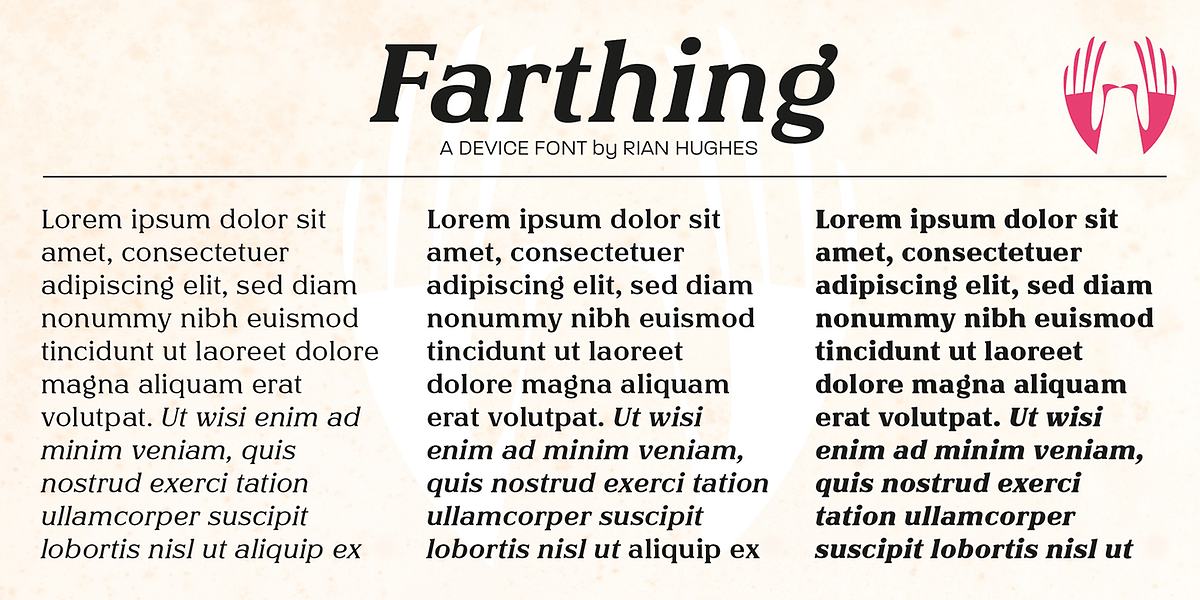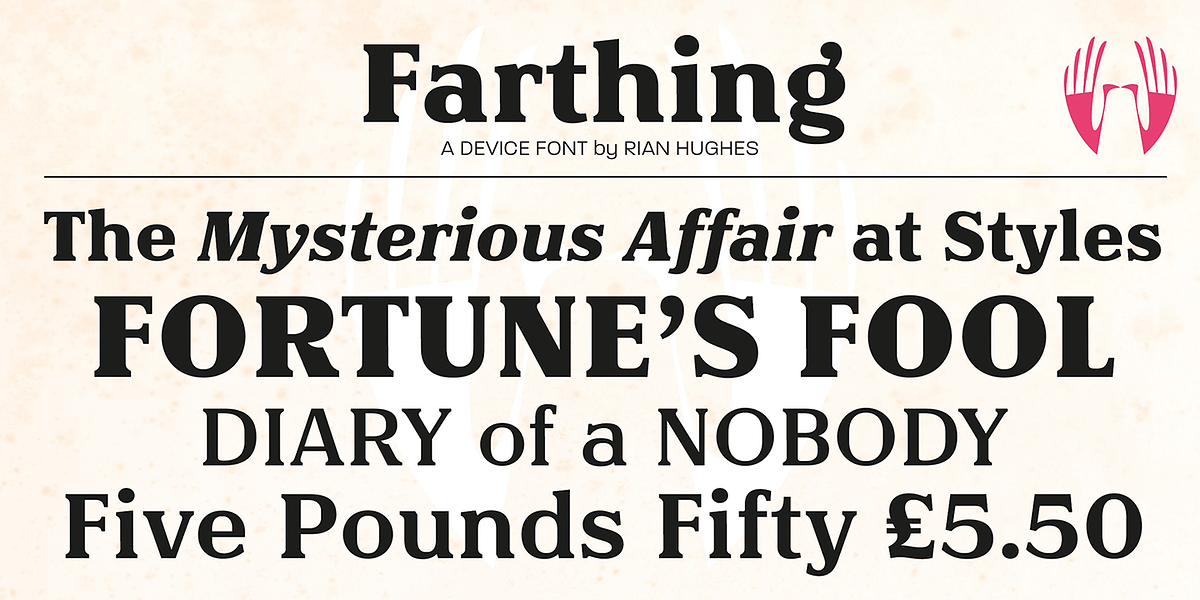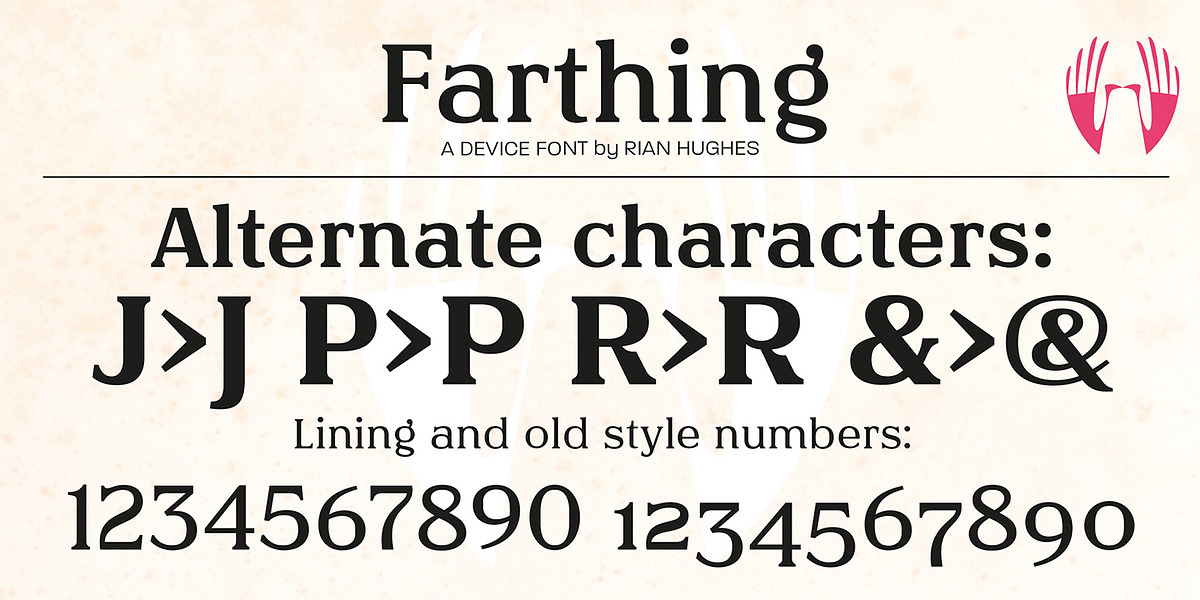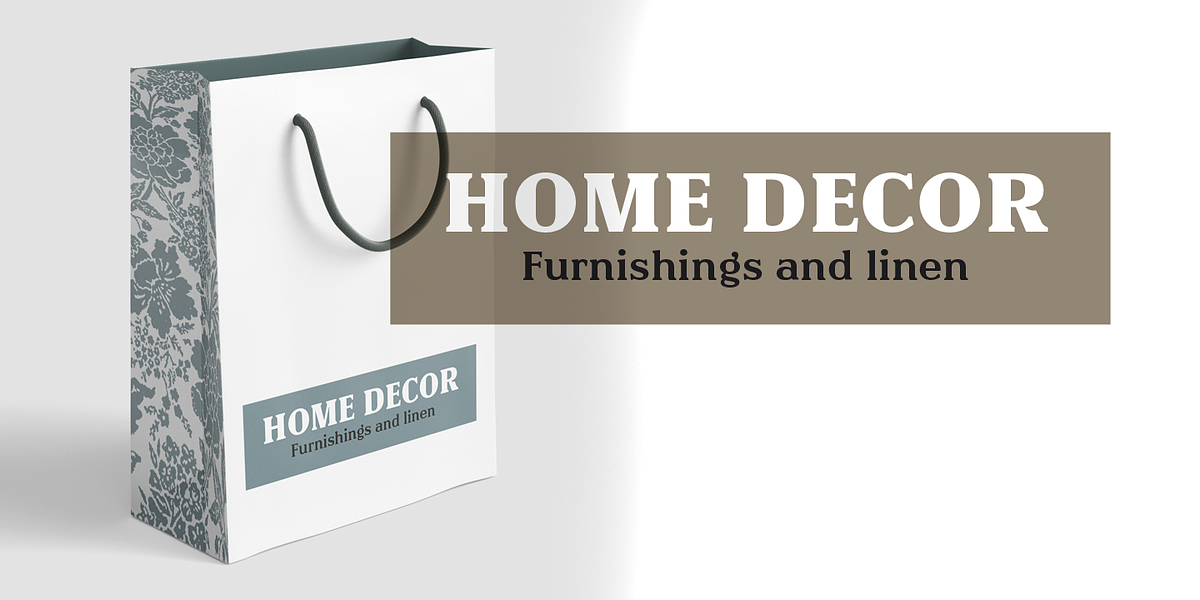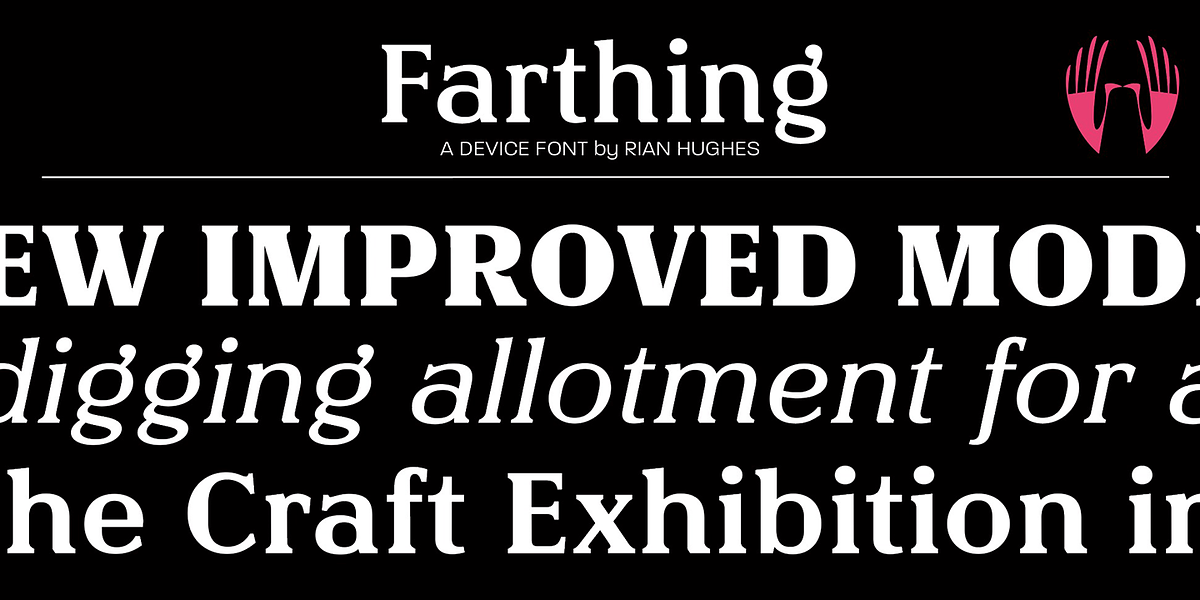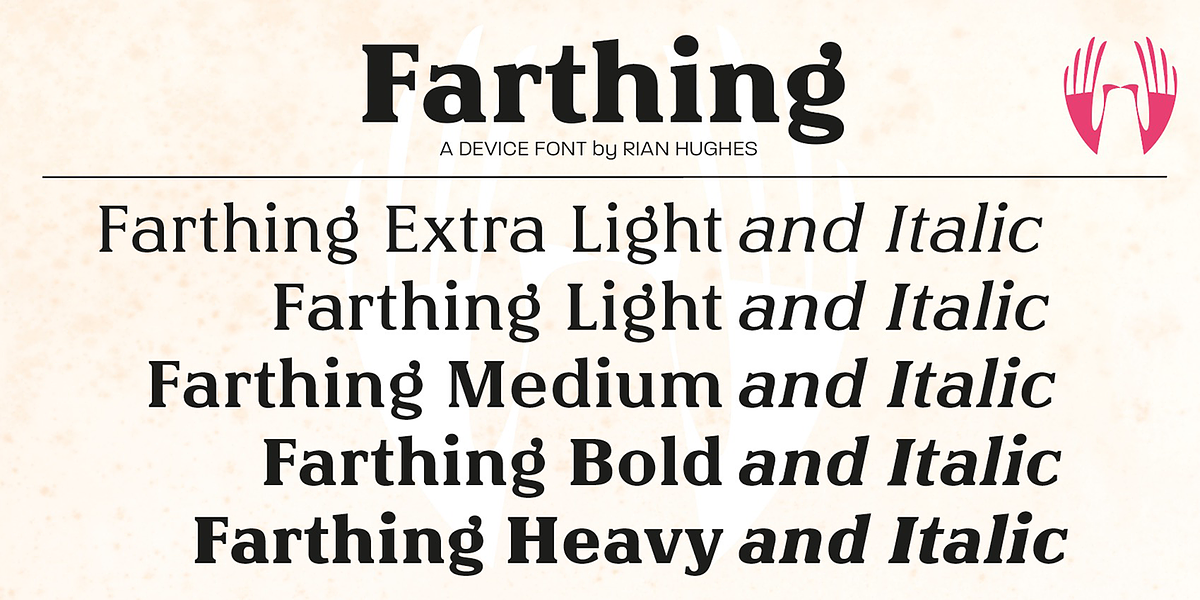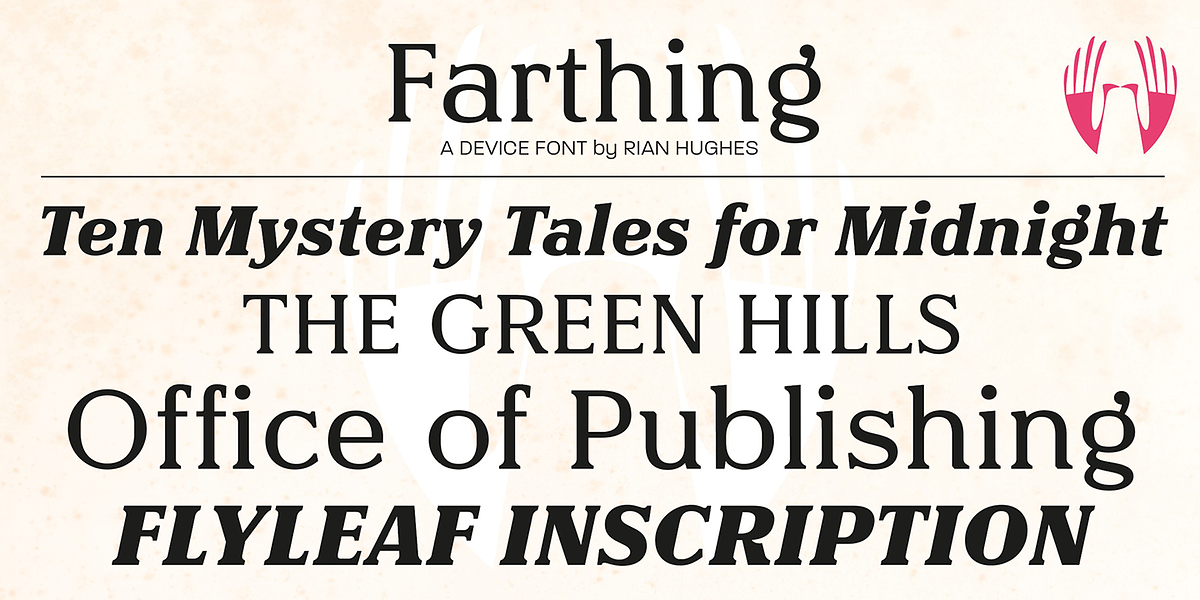
Farthing
Farthing is an elegant serif font that evokes traditional styles. It features five weights, alternate characters, and both lining and old-style numerals, making it suitable for a range of applications from headlines to short paragraphs of body text. Its playful yet poised personality adds a touch of vintage charm.